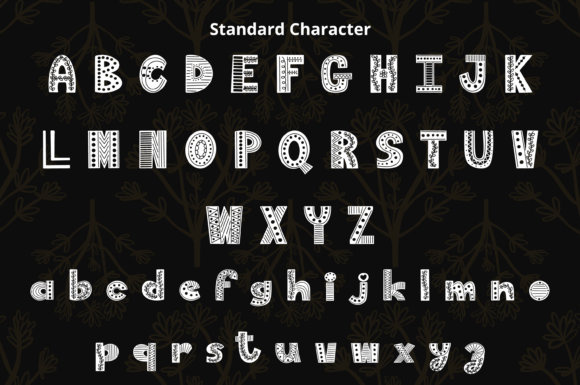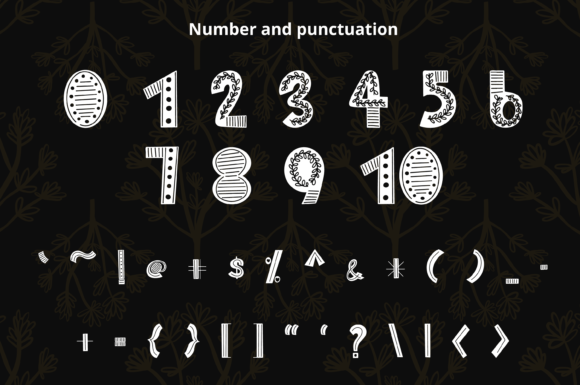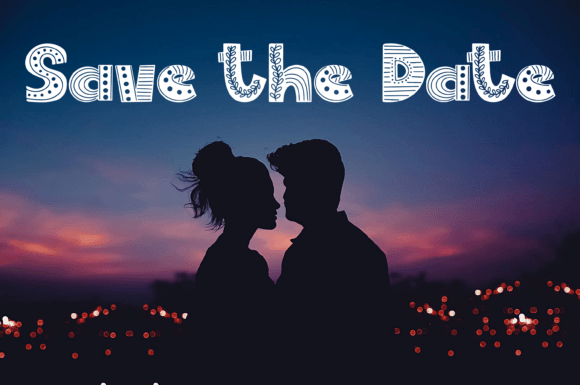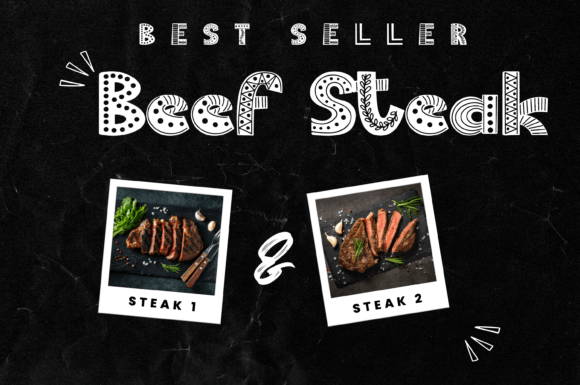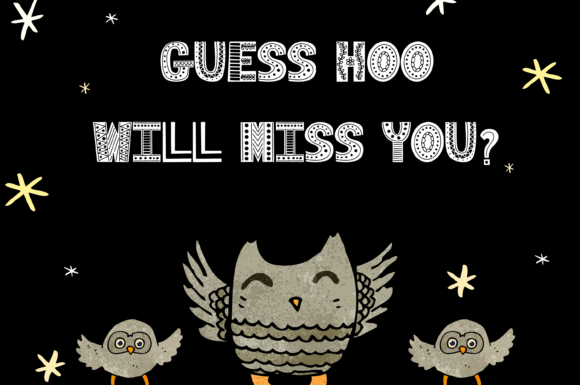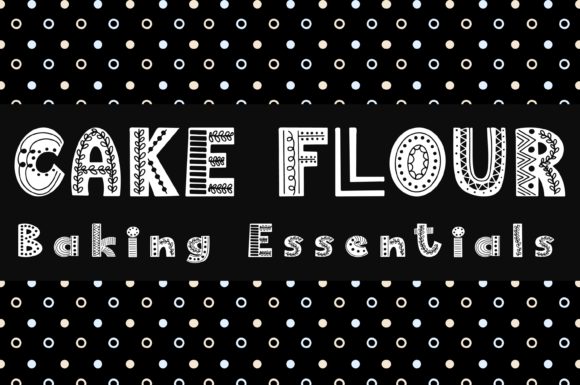
Introduction to Fun Variety Font
Have you ever found yourself staring at a blank canvas, struggling to bring your creative vision to life? We’ve all been there – the blank page, the blank screen, the endless possibilities. But what if I told you there’s a secret to unlocking your full creative potential? Enter the Fun Variety Font, a magical, rustic-style decorative font that’s about to revolutionize the way you design.
Key Features of Fun Variety Font
- High-quality design with a wide range of styles and characters, perfect for creative projects.
- Unique characteristics include bold and playful letterforms, ideal for adding a touch of whimsy to your design.
- Perfect for use in logos, graphics, and other creative projects where a fun and engaging font is required.
Honest Review: Fun Variety Font
I recently had the chance to test the Fun Variety Font and I must say it’s been a game-changer for my design projects. The font is a high quality, free download that offers a wide range of styles and designs to choose from.
One of the things that works well with this font is its versatility. It’s perfect for any creative project, whether it’s a logo, social media graphic, or even a full-fledged branding campaign. The transparent background makes it easy to use and customize to fit any design.
- ✨ Offers a wide range of styles and designs to choose from
- ✨ High quality and crisp text rendering
Overall, I’m really impressed with the Fun Variety Font. It’s a great design resource that offers a lot of value for free. If you’re looking for a high-quality font to add some creativity to your design projects, I would definitely recommend giving it a try.
The Fun Variety Font is ideal for creating eye-catching headlines, titles, and labels for your design projects. It’s also suitable for use in social media graphics, posters, and flyers.
To get the most out of the Fun Variety Font, experiment with different font sizes, colors, and styles to create unique and engaging designs. You can also use the font’s transparent background feature to create complex designs and add depth to your project.